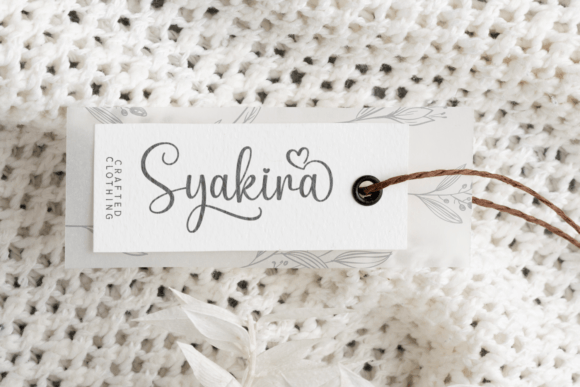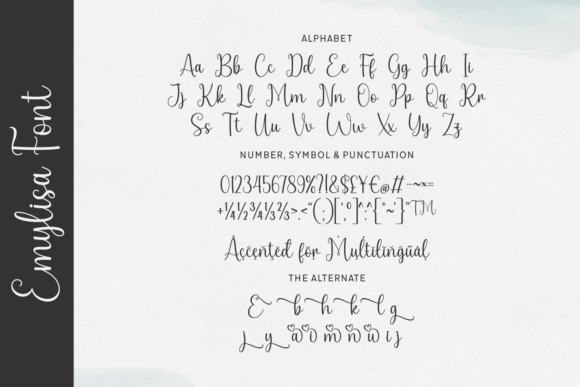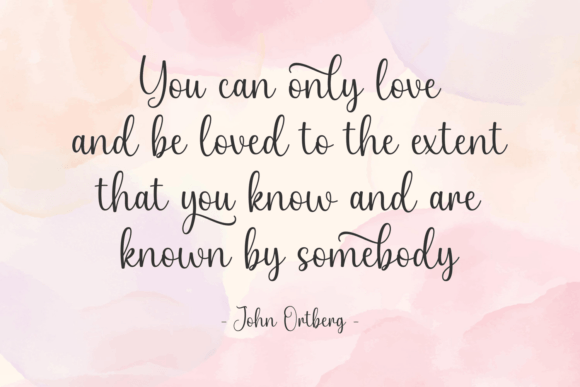
Introducing Emylisa Font: The Perfect Blend of Elegance and Whimsy
Are you a designer or crafter looking for a font that exudes elegance and romance? Look no further than Emylisa Font, a delightful modern script font that is sure to capture your heart. With its charming swashes and heart details, Emylisa is the perfect choice for a variety of creative projects, from wedding invitations to branding and social media posts.
A Font that Combines Sophistication with Whimsy
Emylisa Font is a unique and versatile font that effortlessly combines sophistication with a whimsical touch. Its flowing curves and playful elements make it perfect for designers and crafters who want to add a touch of elegance and romance to their projects. Whether you’re creating a wedding invitation, a greeting card, or a social media post, Emylisa is sure to make your design stand out.
Key Features of Emylisa Font
- Charming Swashes: Emylisa Font features beautiful swashes that add a touch of elegance and sophistication to any design.
- Heart Details: The font’s heart details add a playful and whimsical touch, making it perfect for romantic and creative projects.
- Flowing Curves: Emylisa’s flowing curves create a sense of movement and fluidity, making it perfect for designs that require a sense of elegance and sophistication.
- Playful Elements: The font’s playful elements, such as its charming swashes and heart details, add a touch of whimsy and fun to any design.
Perfect for a Variety of Creative Projects
Emylisa Font is perfect for a variety of creative projects, including:
- Wedding Invitations: Emylisa’s elegant and romantic design makes it perfect for wedding invitations, save-the-date cards, and other wedding-related designs.
- Branding: The font’s sophisticated and whimsical design makes it perfect for branding and packaging designs that require a touch of elegance and romance.
- Social Media Posts: Emylisa’s playful and eye-catching design makes it perfect for social media posts, including Instagram and Facebook graphics.
- Greeting Cards: The font’s charming and whimsical design makes it perfect for greeting cards, including birthday, anniversary, and Valentine’s Day cards.
Why Choose Emylisa Font?
- Unique and Versatile: Emylisa Font is a unique and versatile font that can be used for a variety of creative projects.
- Elegant and Romantic: The font’s elegant and romantic design makes it perfect for projects that require a touch of sophistication and whimsy.
- Easy to Read: Emylisa Font is easy to read, making it perfect for designs that require a clear and concise message.
Tips for Using Emylisa Font
Here are a few tips for using Emylisa Font in your creative projects:
- Use it for Headings: Emylisa Font is perfect for headings and titles, where its elegant and whimsical design can really shine.
- Pair it with Other Fonts: The font pairs well with other fonts, including serif and sans-serif fonts.
- Experiment with Colors: Emylisa Font looks great in a variety of colors, including pastel colors, bright colors, and metallic colors.
- Use it for Digital and Print Designs: The font is perfect for both digital and print designs, including social media posts, greeting cards, and wedding invitations.
In conclusion, Emylisa Font is a delightful modern script font that is perfect for designers and crafters who want to add a touch of elegance and romance to their creative projects. With its charming swashes, heart details, and flowing curves, Emylisa is a versatile and eye-catching font that is sure to capture your heart. Whether you’re creating a wedding invitation, a branding design, or a social media post, Emylisa Font is the perfect choice.